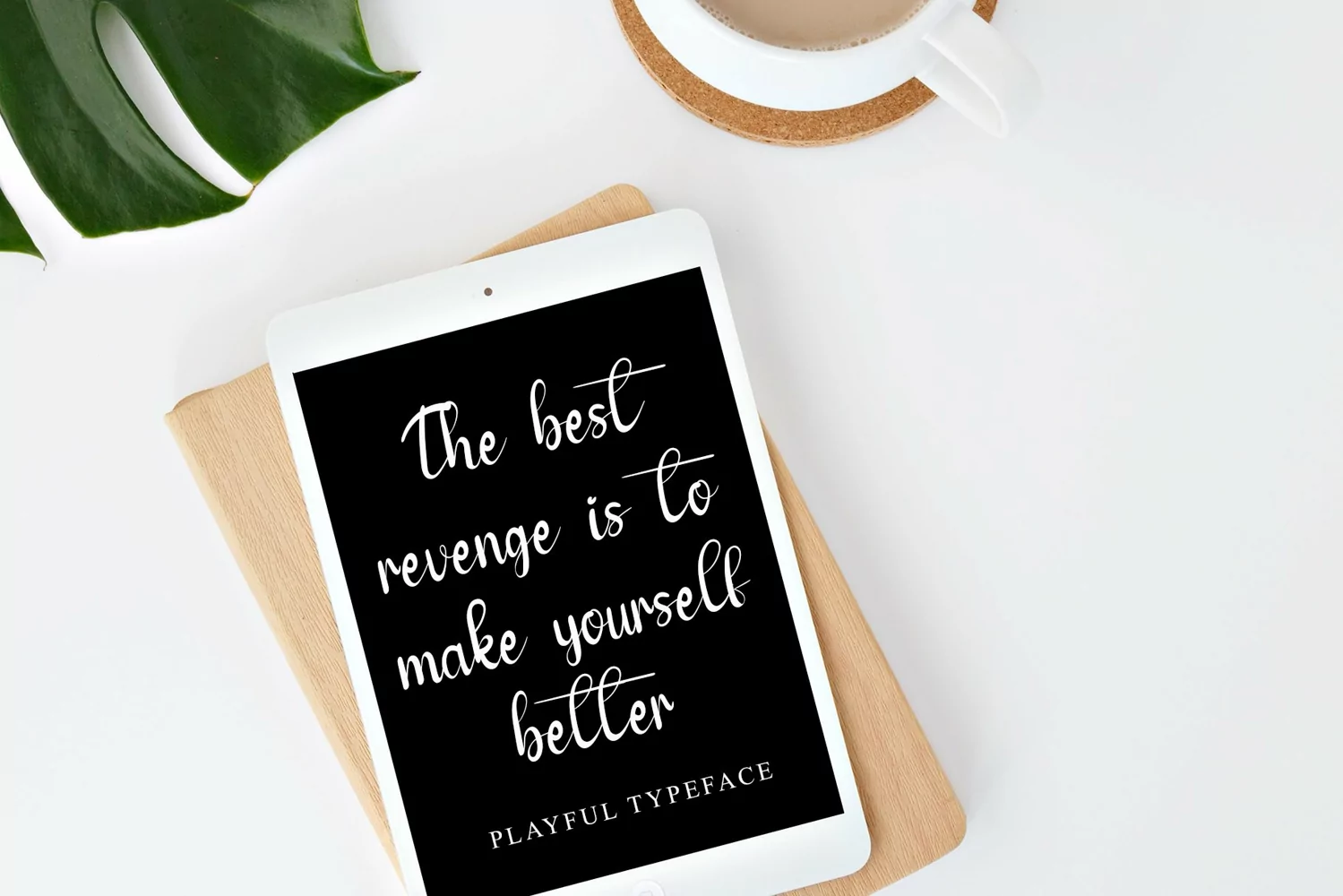
Stickers Teacher
Introducing, this is our newest product, we call this product Stickers Teacher,
It looks amazing with sweet touches and beautiful curves in each letter. Stickers Teacher fonts are perfect for: wedding invitations, fashion magazines, logos, signatures, photography, watermarks, wall displays, social media,